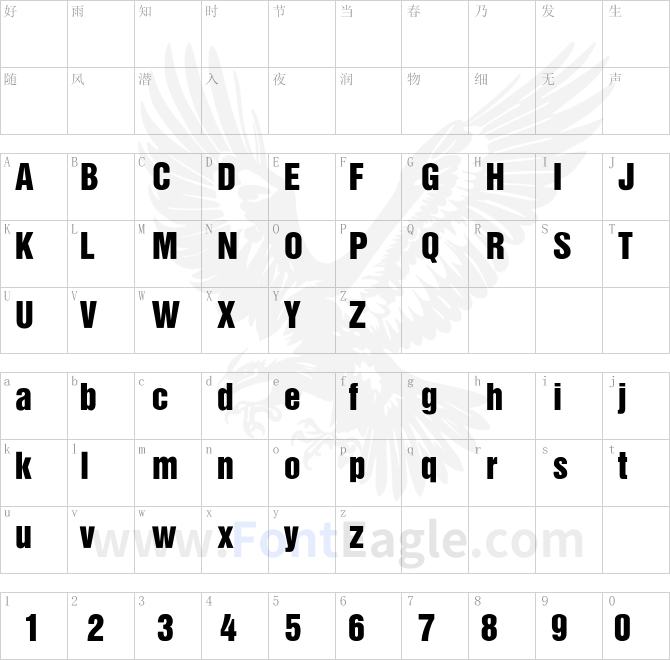
- Font name:Wellmet Adcopy
- Font Subfamily ID:ALLTYPE:HelveticaInserat-Roman-SemiBold Regular:MIKE
- Font Full Name:Wellmet Adcopy
- Postscript:HelveticaInserat-Roman-SemiBold